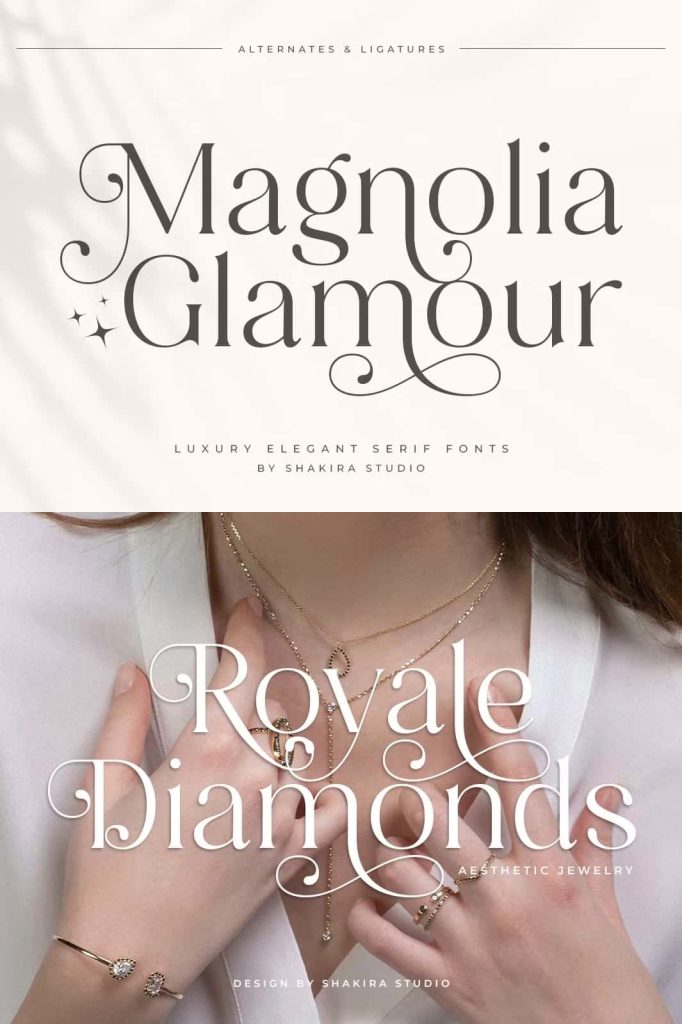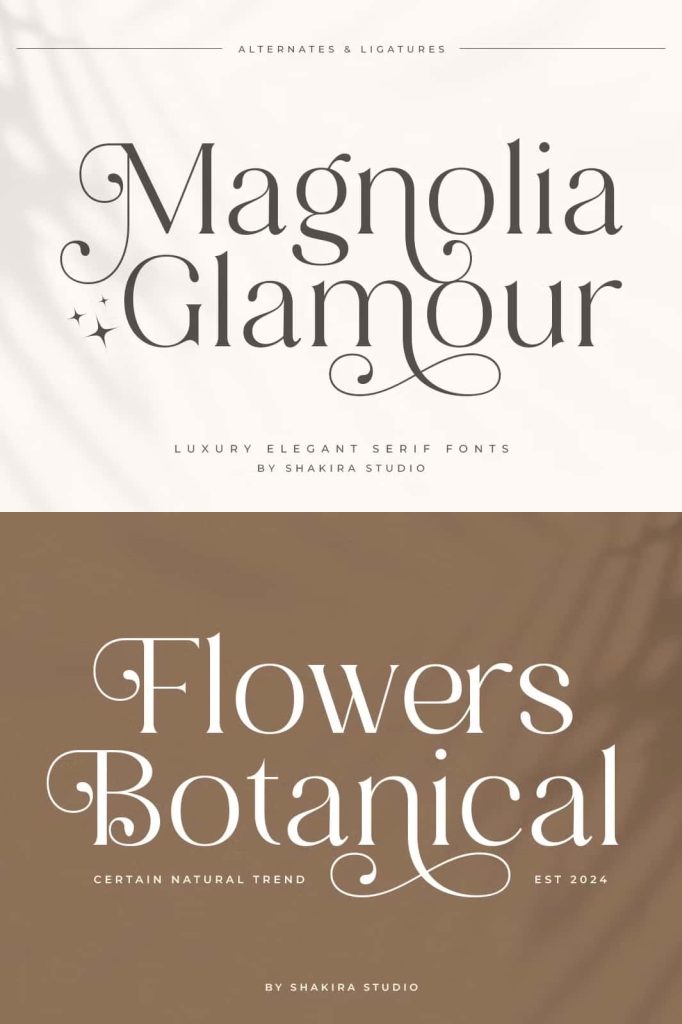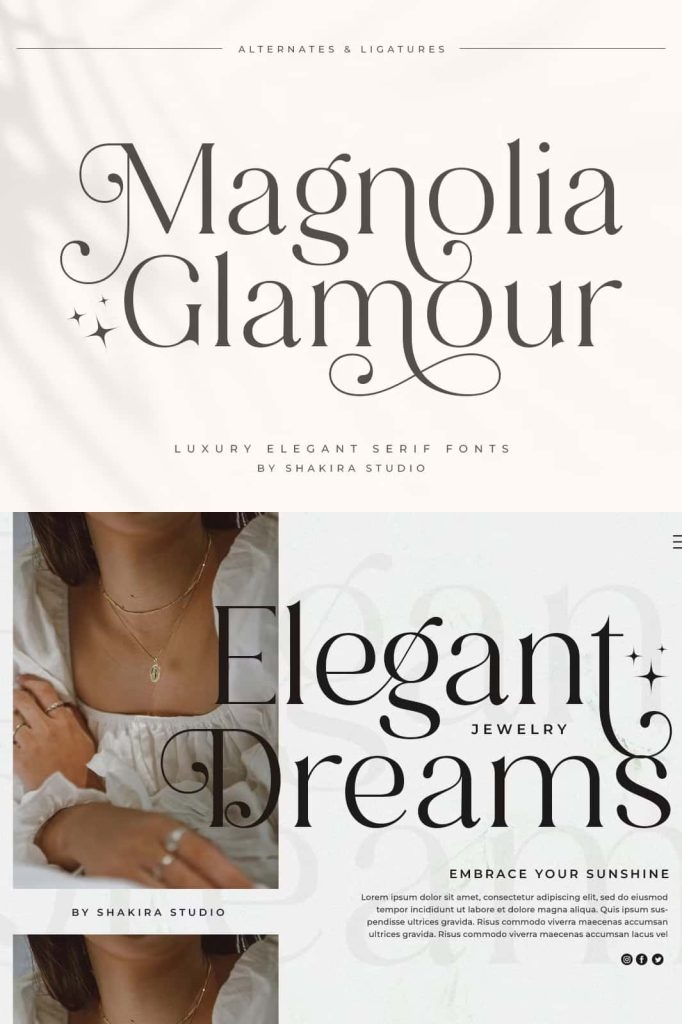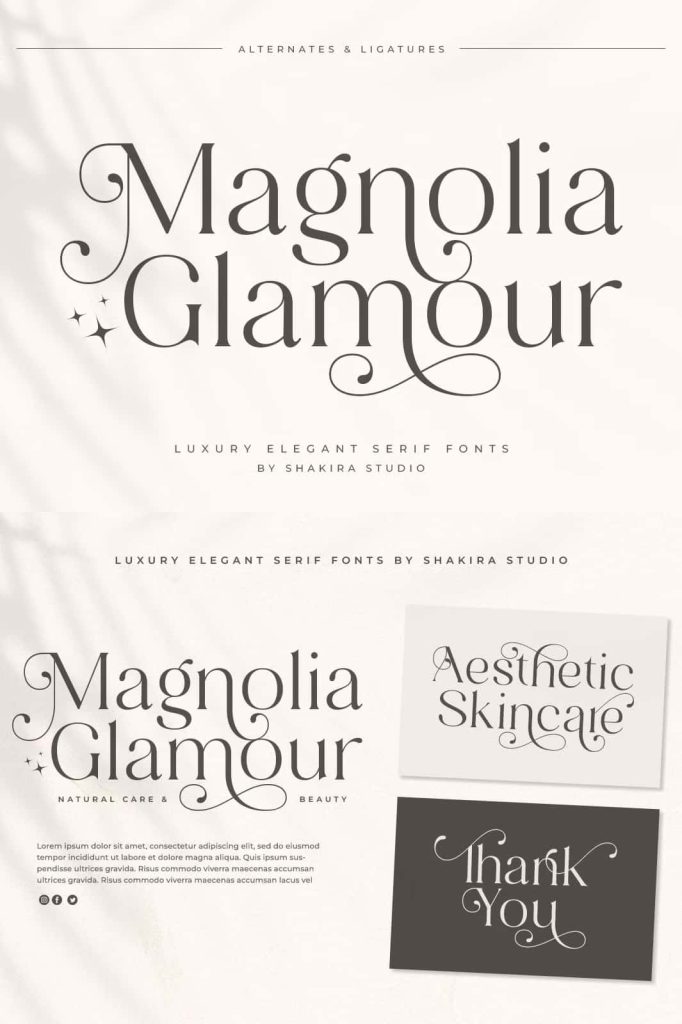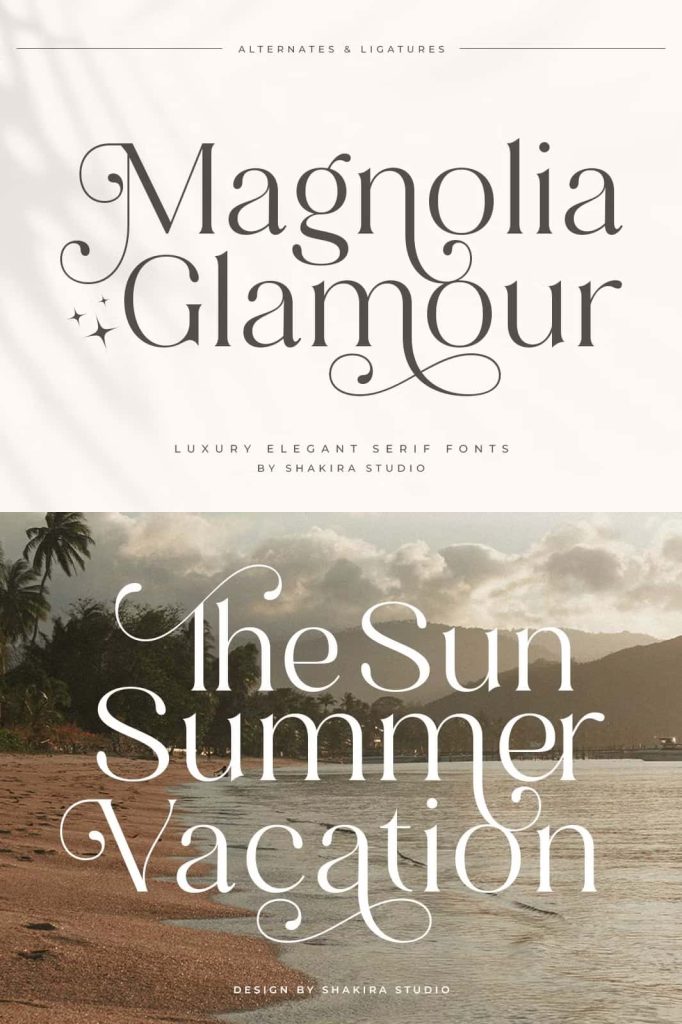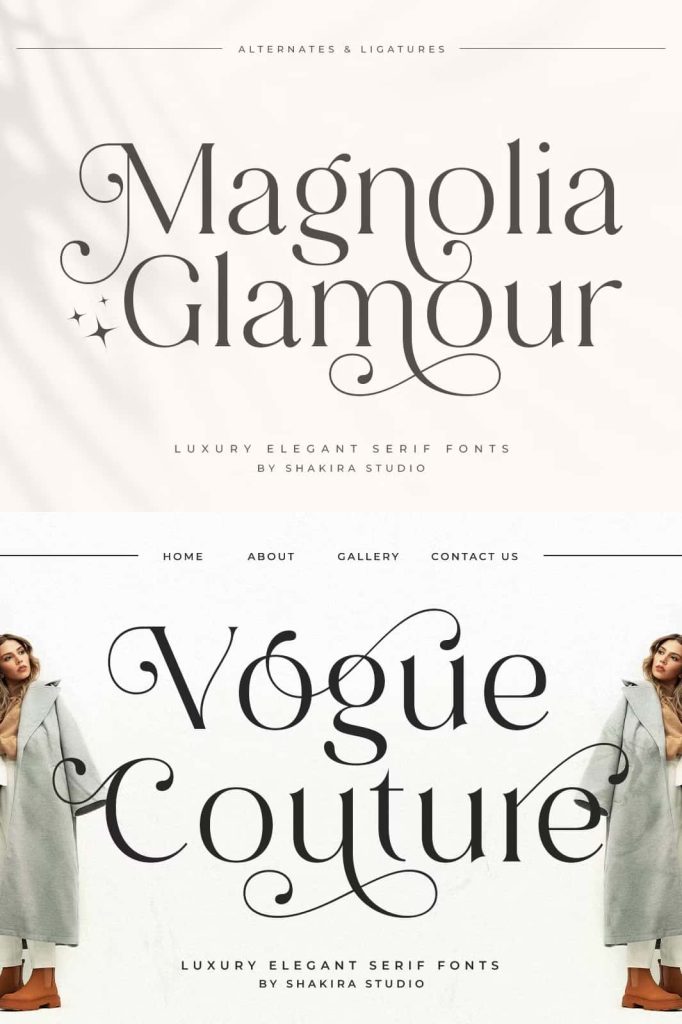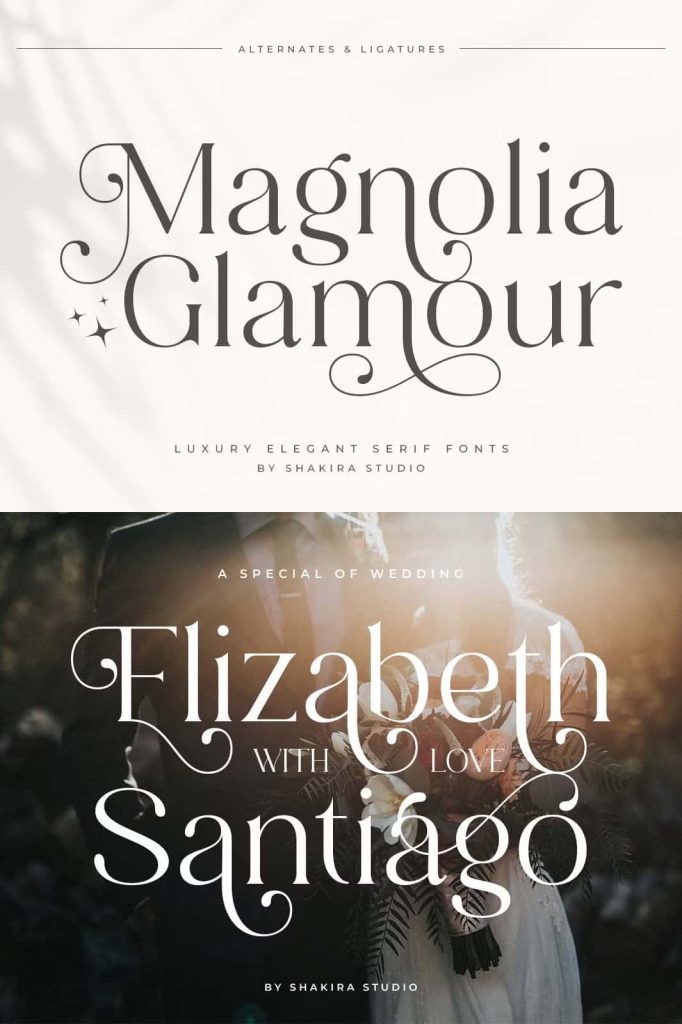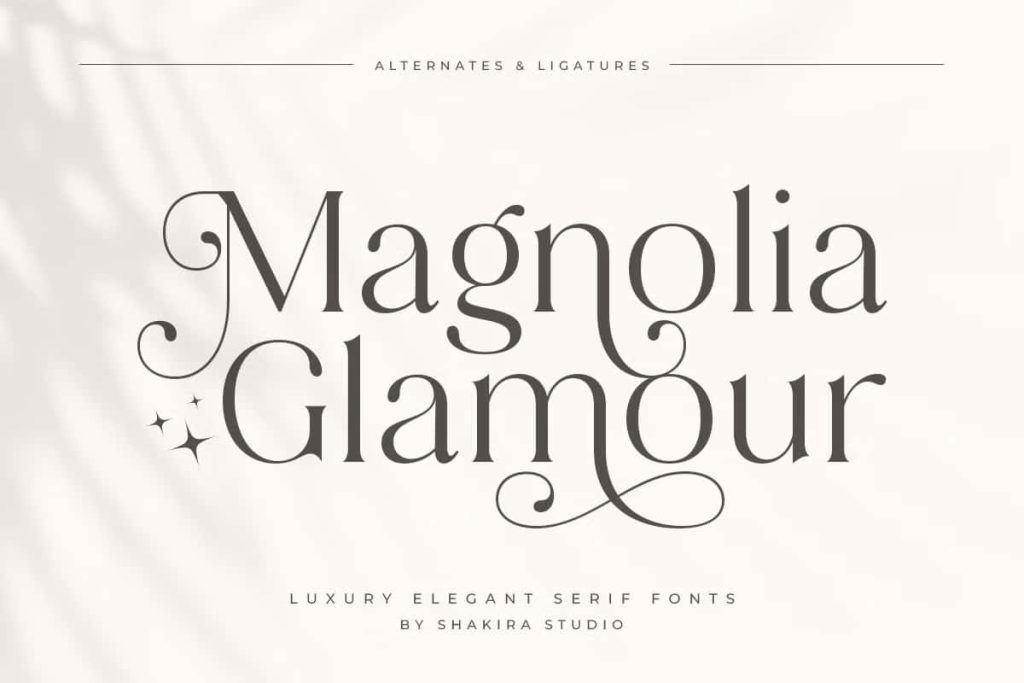
Magnolia Glamour – Luxury SerifleastedJuly 25, 2025Fonts Magnolia Glamour is more than just a font; it’s a statement of sophistication and opulence. Perfectly embodying the essence Download